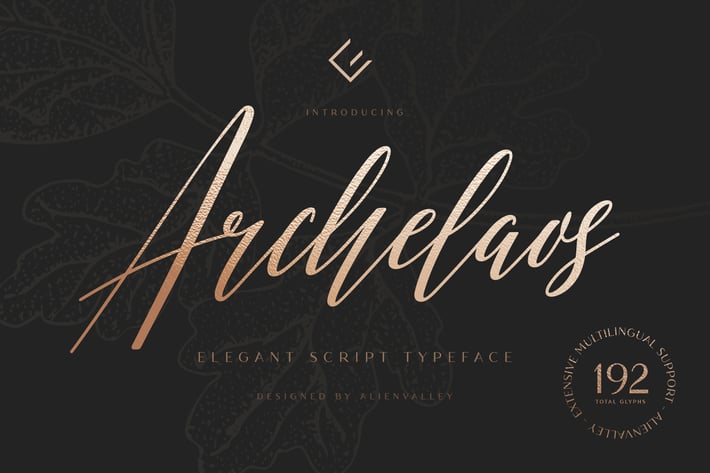
Archelaos - Elegant Script Font
An elegant font that looks great when paired with serif or sans-serif fonts and can also be used as a signature. Perfect for wedding invitations, stylish presentations, logos, posters and much more!
+ Uppercase & Lowercase
+ Multilingual Support
+ Contextual alternates